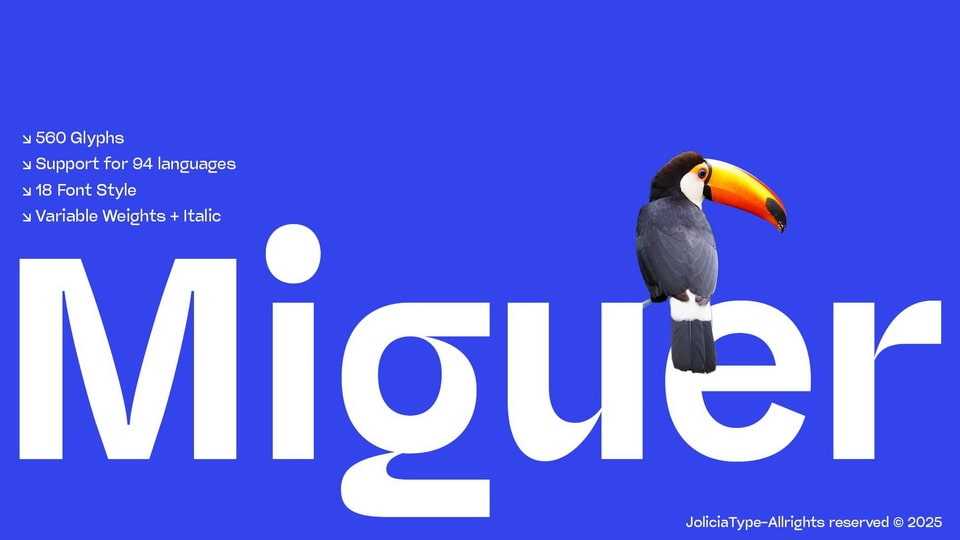
Download Miguer Sans font, a high-contrast, modern sans-serif typeface that combines flexibility with a distinctive aesthetic. Miguer font offers a broad spectrum of design possibilities.